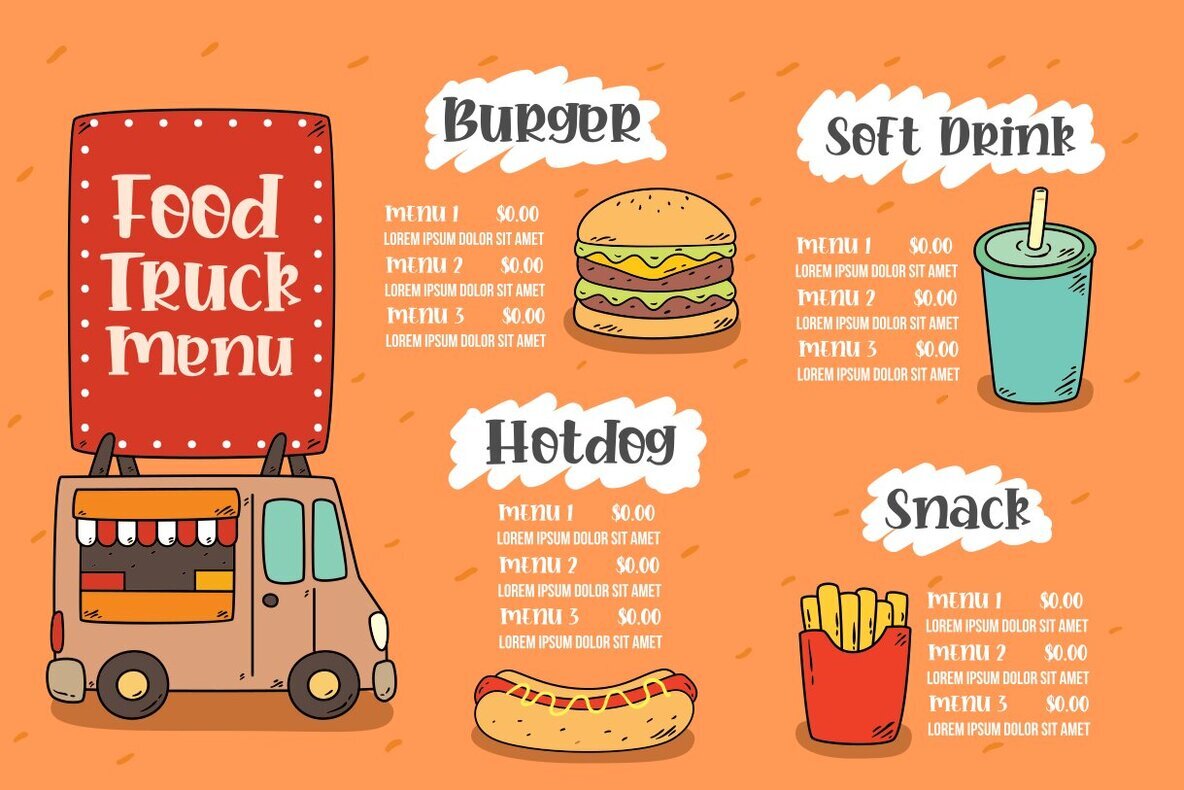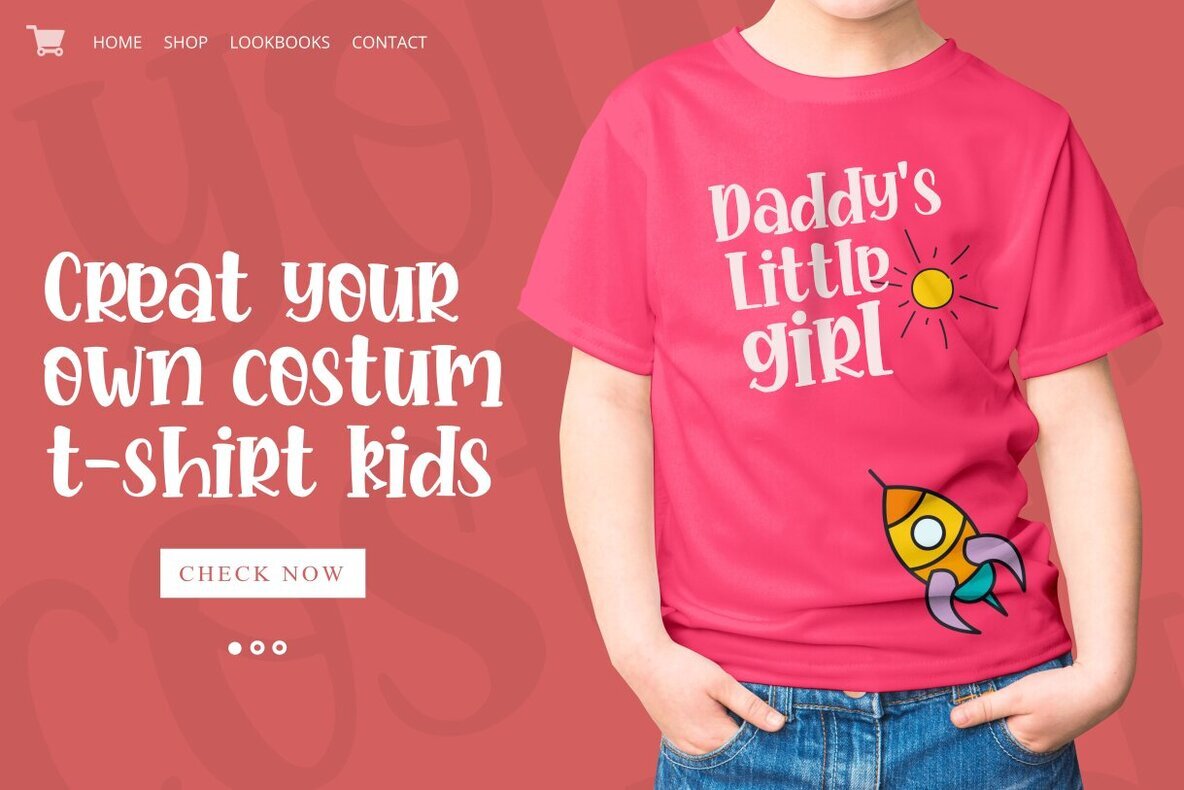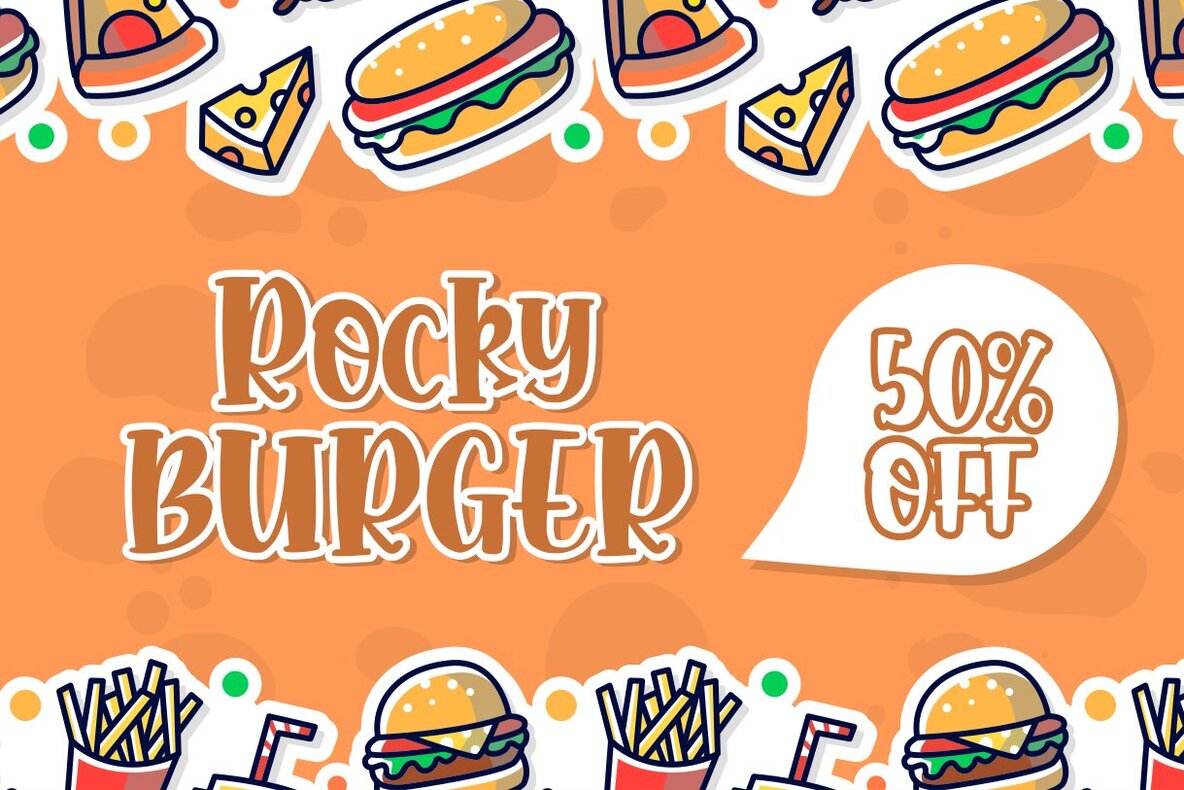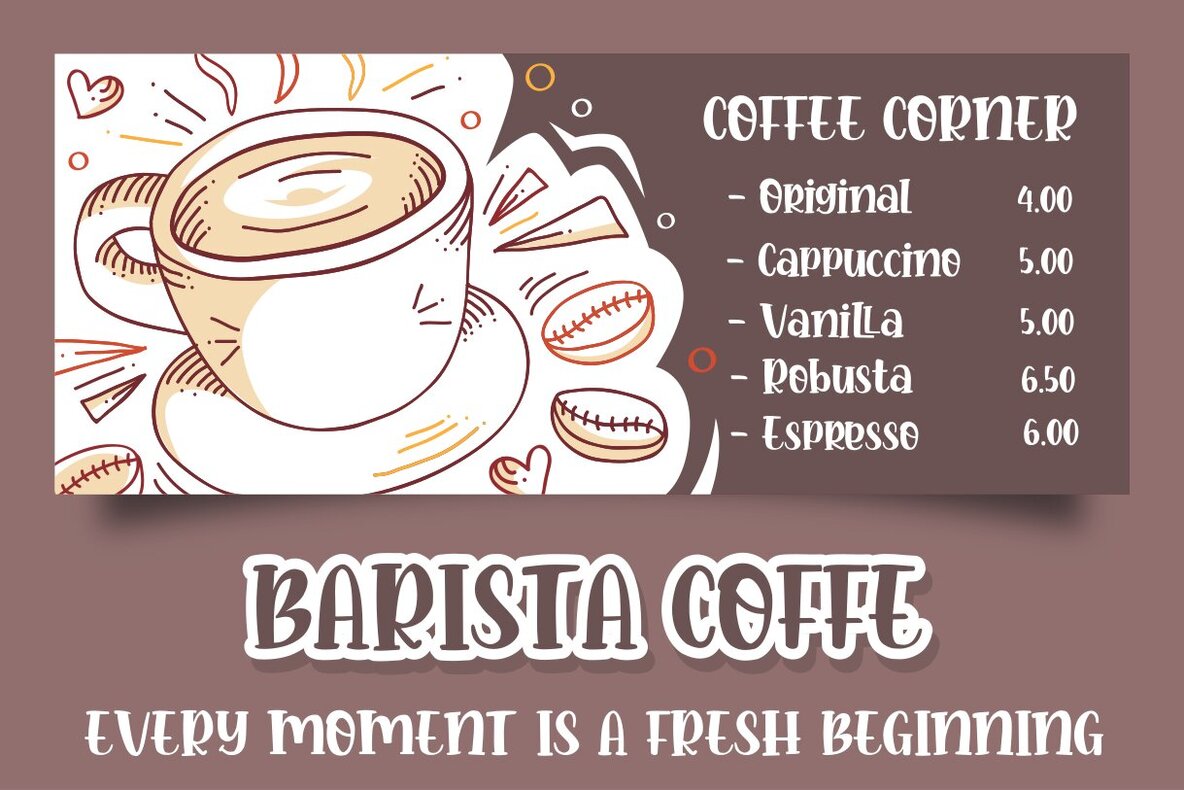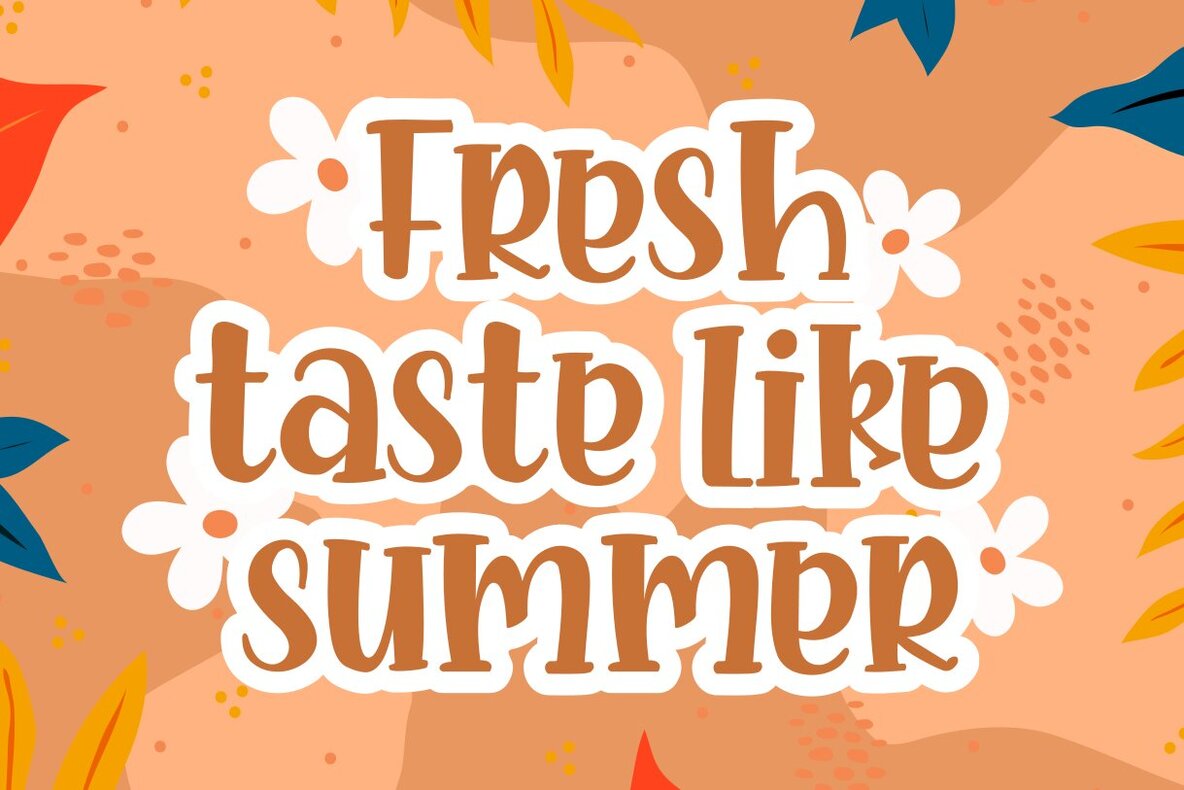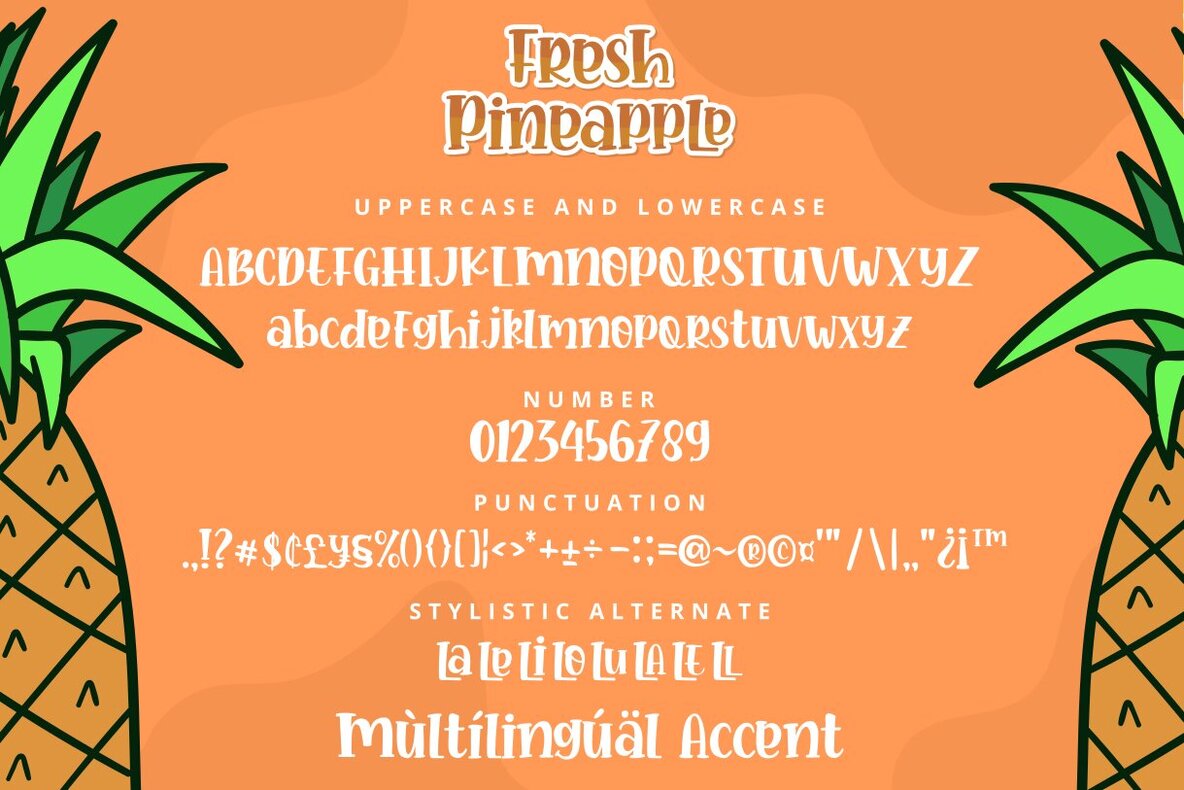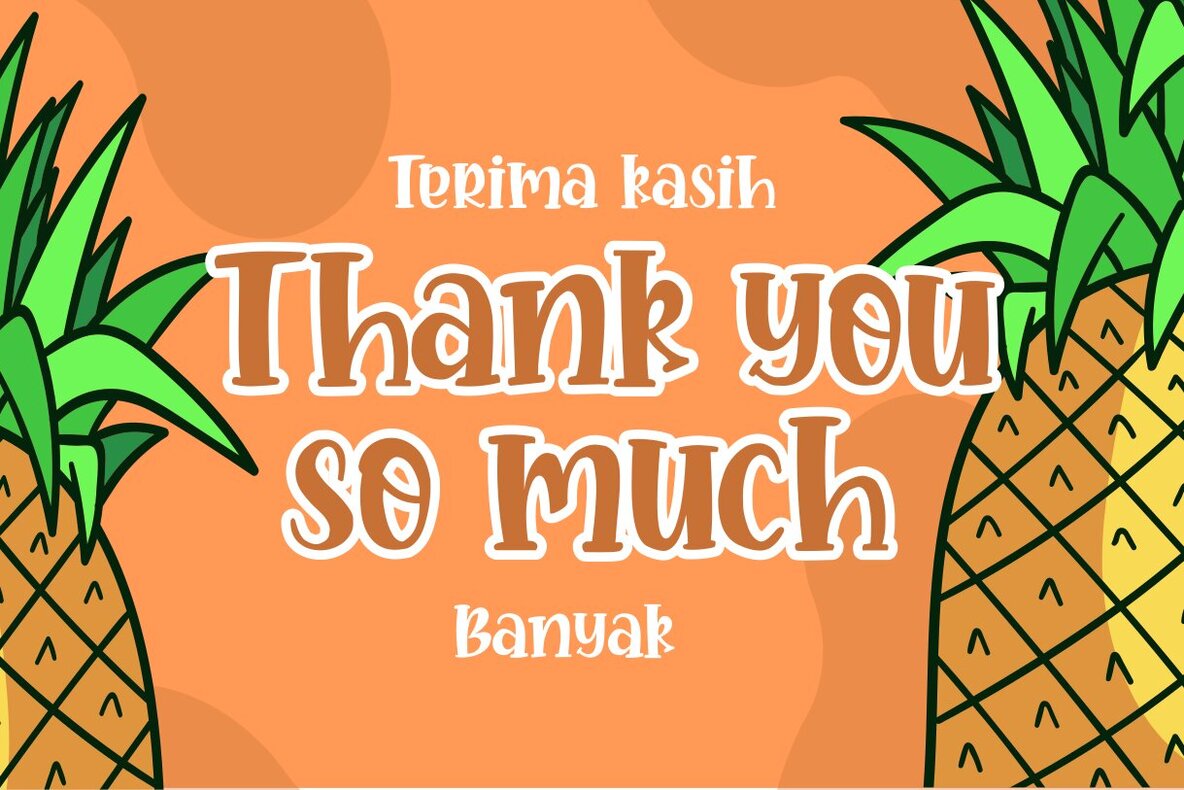
Fresh Pineapple Font
Fresh Pineapple
Fresh Pineapple is a delightful handwritten font by Zeenesia Studio, bringing a whimsical touch to any lettering project. Its playful and unique style is perfect for a variety of creative applications. Whether you're designing t-shirts, mugs, adverts, vinyl cuttings, book covers, posters, or business cards, Fresh Pineapple adds a personal and artistic flair. It's also a great choice for enhancing social media graphics and other digital content.Fresh Pineapple: A Delightfully Quirky Handwritten Font
Perfect for Creative Projects